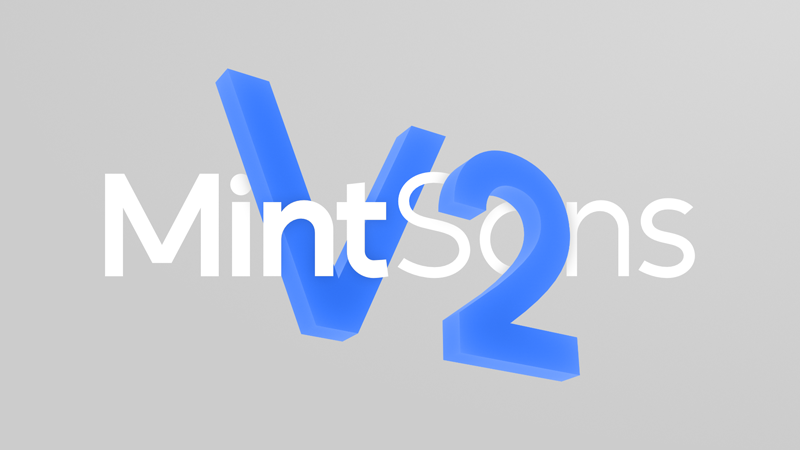
Note by pprmint | |
My first attempt at making a geometric font family (?) in 3 weights and a rather limited character set. Free to use however you and I want. Next major update is in the works. Stay tuned. https://pprmint.de/ |